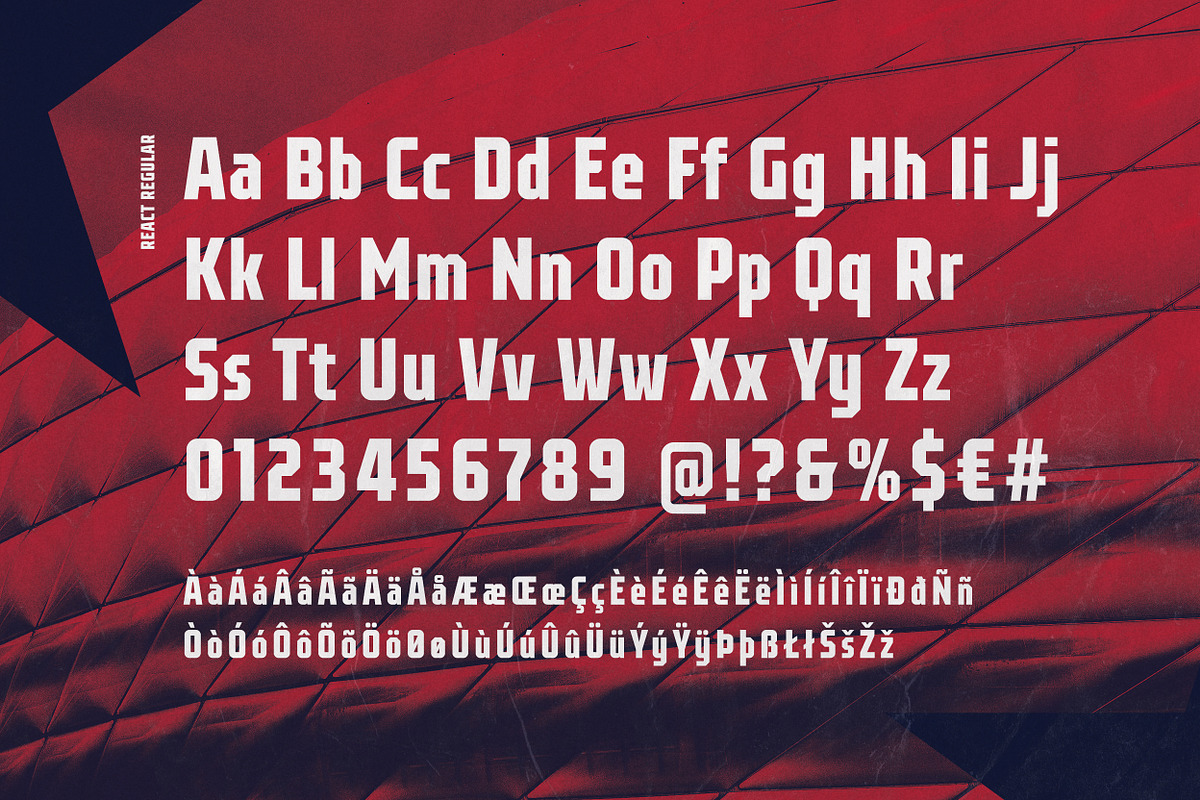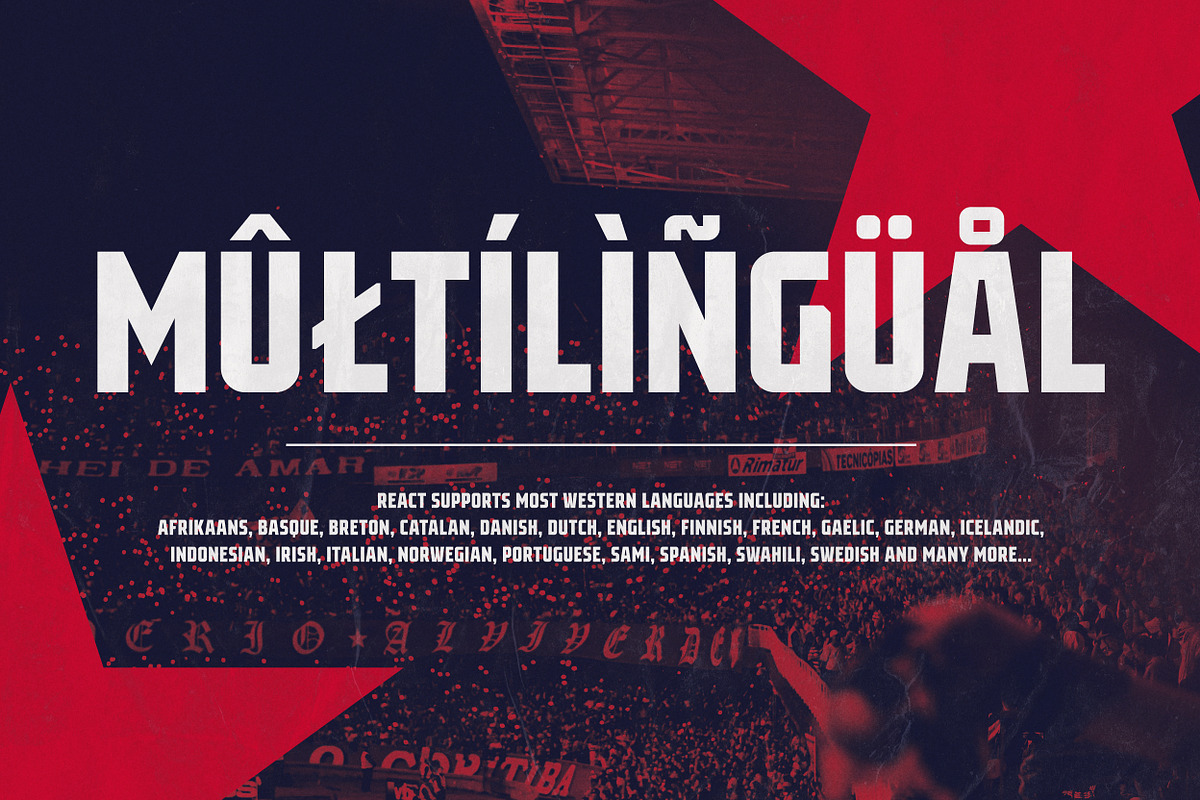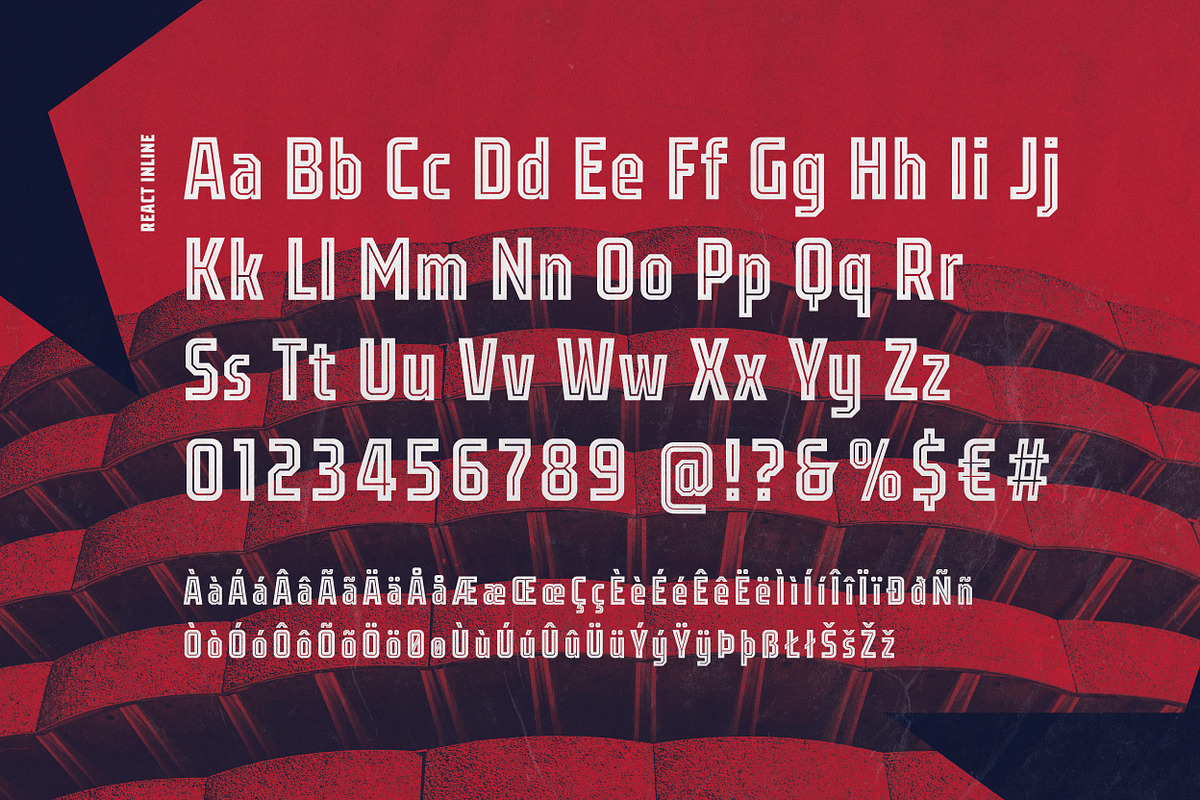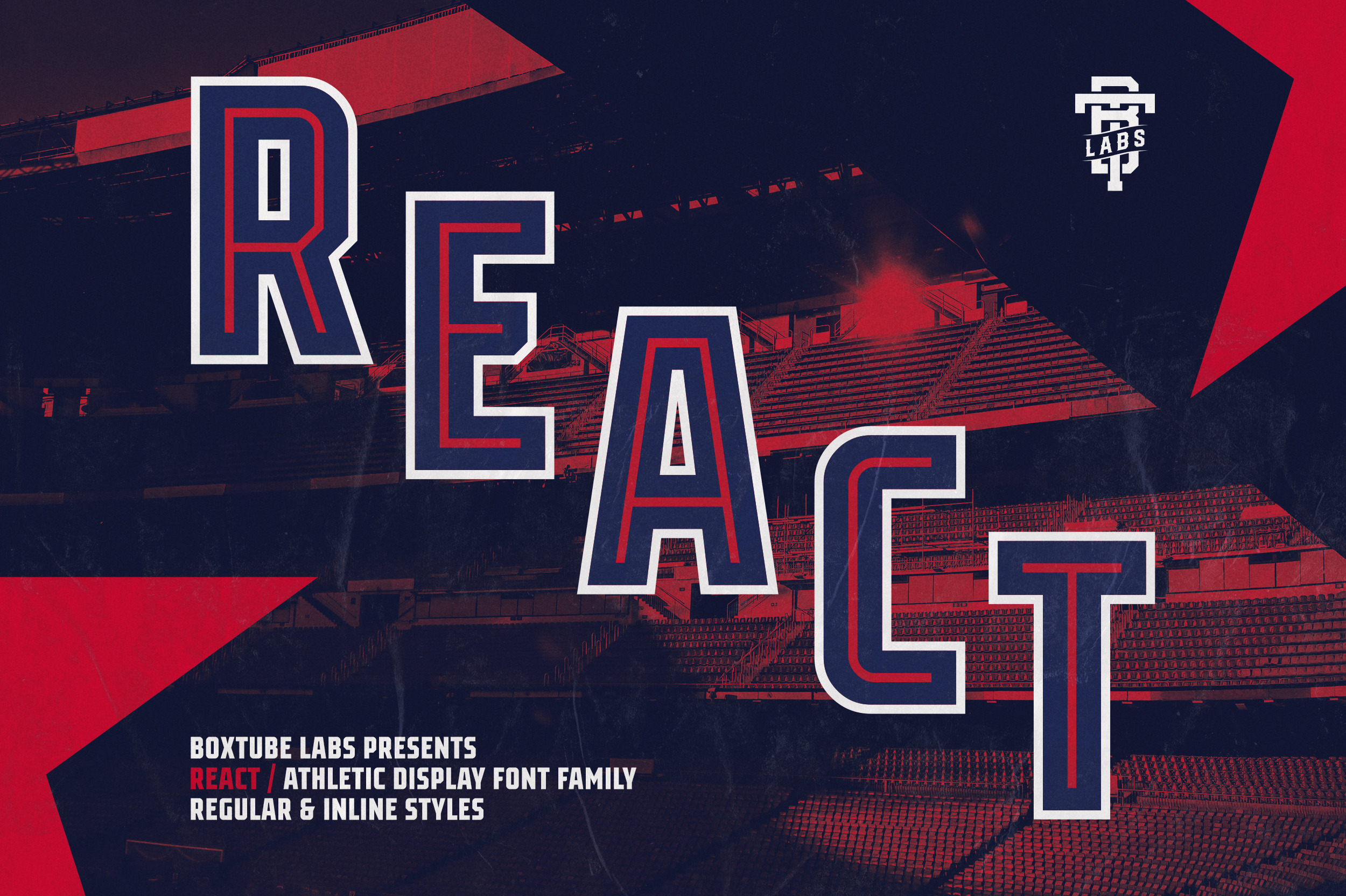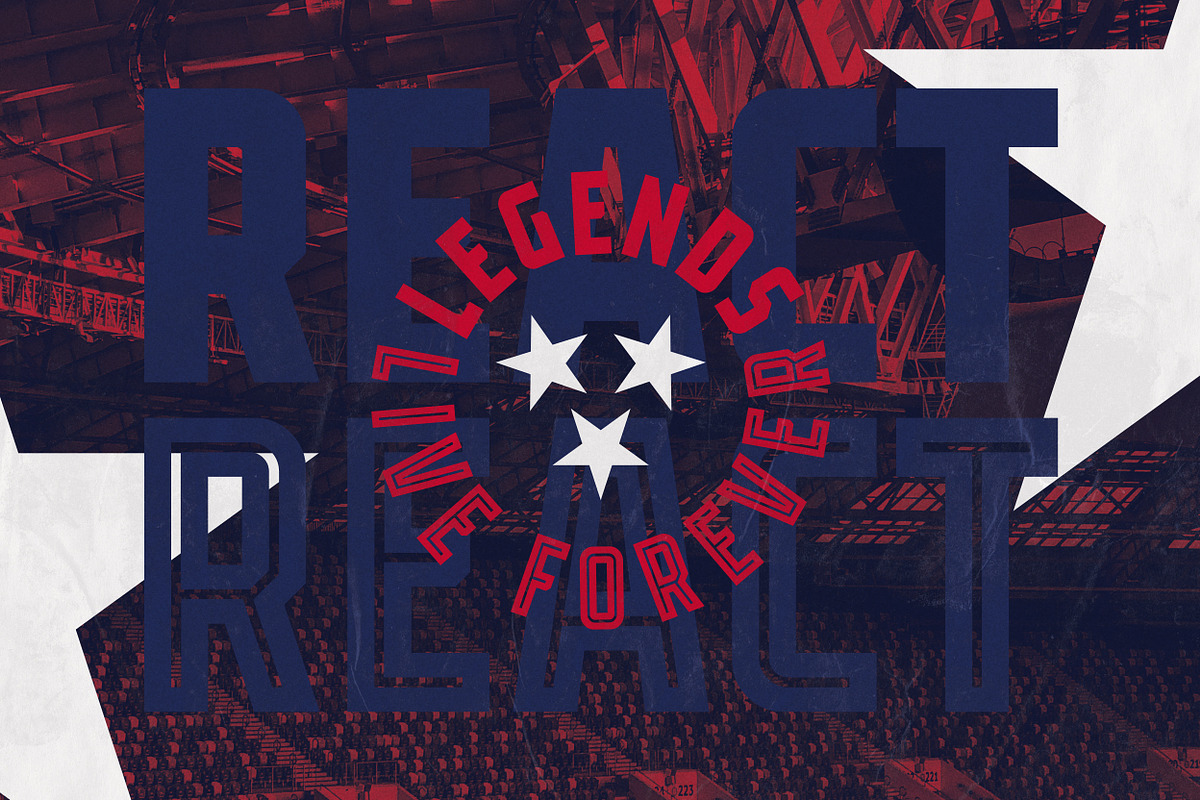
React - Display Font
React is modern athletic display block font family. It's timeless shapes and features will give you an instant athletic feel to your project. React features both chamfered corners and rounded giving it a unique approach.
These fonts are perfect for sports logos, branding, posters, apparel design, magazine headlines, labels and so much more.
React features a character set with support for most western languages including: Afrikaants, Basque, Breton, Catalan, Danish, Dutch, English, Finnish, French, Gaelic, German, Icelandic, Indonesian, Irish, Italian, Norwegian, Portuguese, Sami, Spanish, Swahili and Swedish.